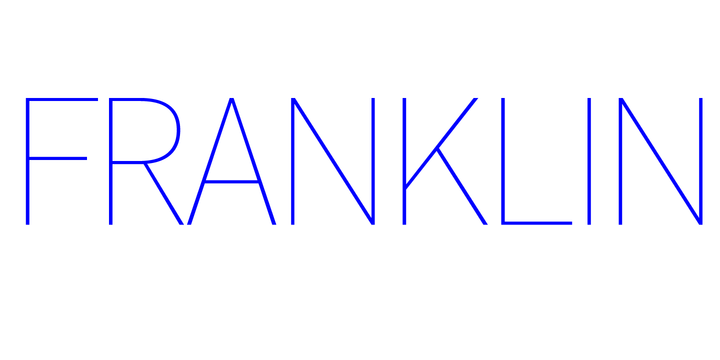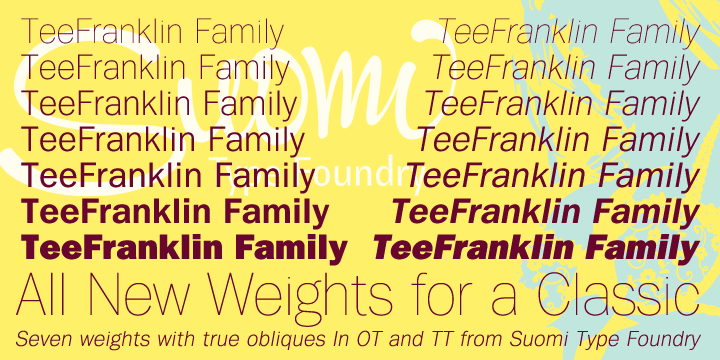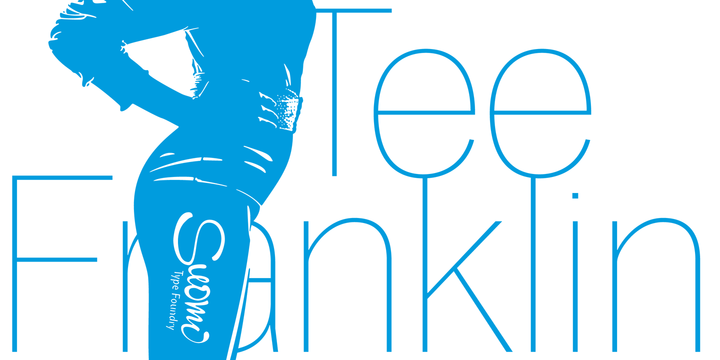
Tee Franklin Font Family
The British Vogue commissioned this typeface for their magazine re-design in 2001. After studying the originals of Morris Fuller Benton and the existing versions, this font was designed with all new thin weights. Just when the family was finished, Vogue informed that they had decided to use American Typewriter instead. Bastards. But here is a true classic typeface with a facelift. The pun intended.